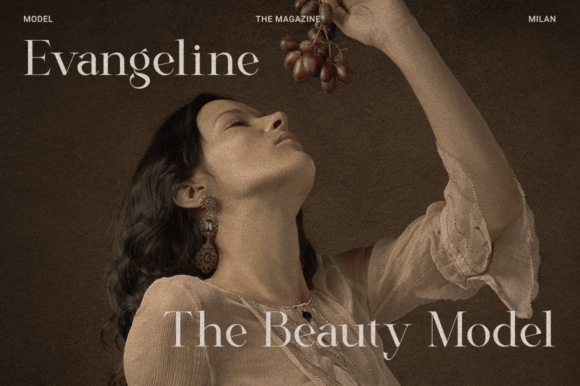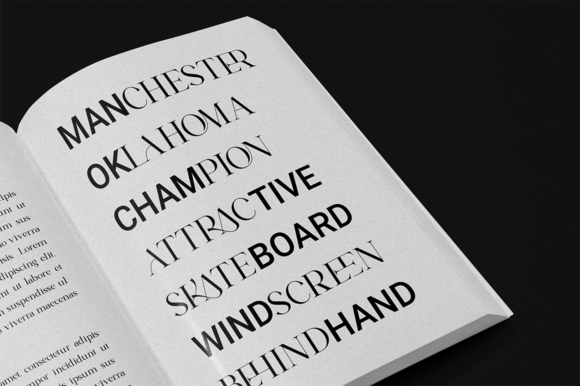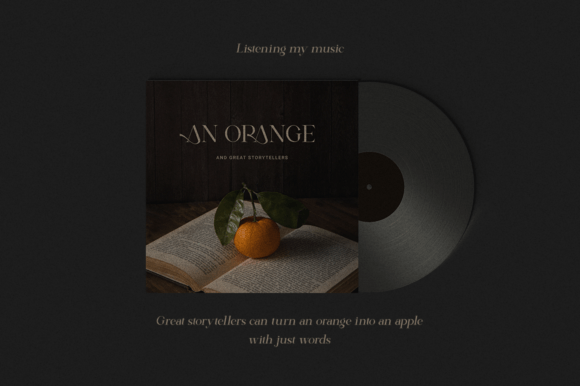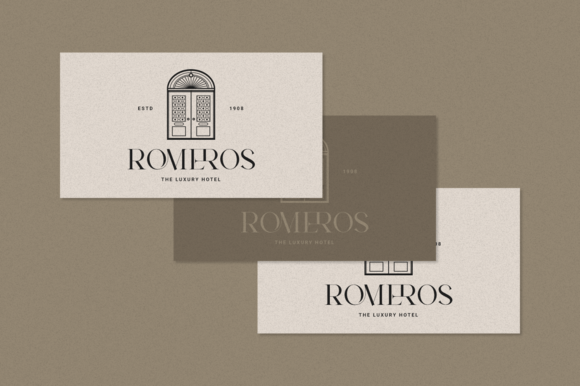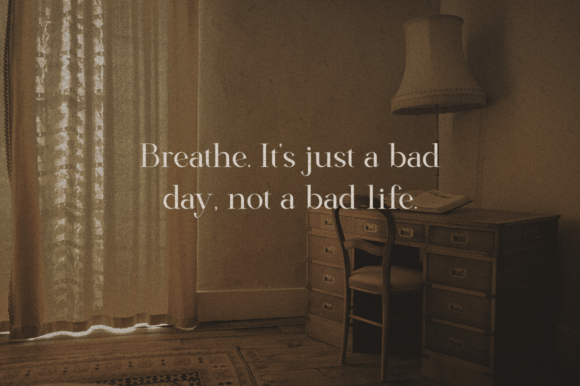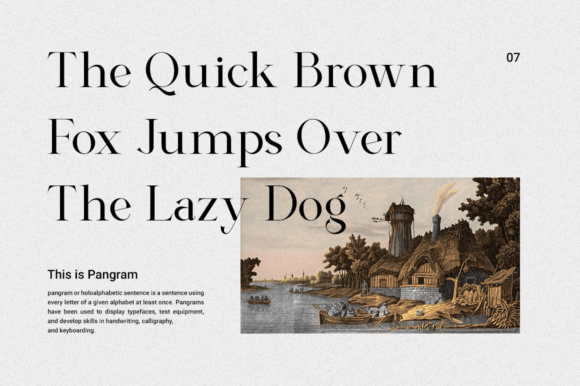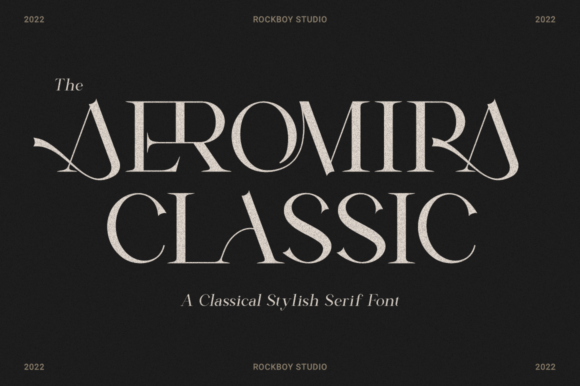
Aeromira Classic Font: Elevate Your Designs with Elegance and Sophistication
In the world of typography, a font can make or break a design. For designers and crafters seeking to add a touch of elegance and sophistication to their projects, Aeromira Classic is an exceptional choice. This stunning serif font boasts a unique blend of classic calligraphic influences and modern freshness, making it perfect for those who strive for perfection.
The Essence of Aeromira Classic
Aeromira Classic is an elegant and thin-lettered serif font that exudes refinement and poise. Its slender lines and precise curves create a sense of luxury, ideal for designs that demand a high level of sophistication. Whether you’re working on a branding project, packaging, or editorial design, Aeromira Classic is sure to impress.
Timeless Elegance with a Modern Twist
One of the standout features of Aeromira Classic is its ability to balance classic calligraphic influences with a contemporary feel. The font’s serif elements and delicate strokes evoke a sense of nostalgia, while its clean lines and modern aesthetic ensure it remains fresh and relevant. This harmonious blend of old and new makes Aeromira Classic an incredibly versatile font, suitable for a wide range of design applications.
For designers and crafters, Aeromira Classic offers endless possibilities. Use it to:
- Create stunning brand identities that exude elegance and sophistication
- Design beautiful packaging that stands out on store shelves
- Develop captivating editorial designs that engage and inspire
- Craft unique and eye-catching stationery and invitations
Why Choose Aeromira Classic?
With so many fonts available, why choose Aeromira Classic? Here are just a few reasons:
- Unique and distinctive: Aeromira Classic offers a fresh take on traditional serif fonts, making it an excellent choice for designers seeking to differentiate their work.
- Highly versatile: The font’s adaptability ensures it can be used across various design applications, from digital projects to print materials.
- Elegant and sophisticated: Aeromira Classic’s refined aesthetic makes it perfect for designs that demand a high level of luxury and sophistication.
Tips for Using Aeromira Classic
To get the most out of Aeromira Classic, consider the following tips:
- Pair with contrasting fonts: Combine Aeromira Classic with bold, modern fonts to create striking visual contrasts.
- Experiment with colors: While Aeromira Classic looks stunning in traditional black and white, don’t be afraid to experiment with bold colors to add an extra layer of personality to your designs.
- Pay attention to spacing: Aeromira Classic’s delicate lines and curves require careful attention to spacing to ensure optimal readability and visual flow.
Aeromira Classic is a truly exceptional font that offers designers and crafters a unique opportunity to elevate their designs with elegance and sophistication. Its perfect blend of classic calligraphic influences and modern freshness makes it an incredibly versatile and sought-after font. Whether you’re working on a branding project, packaging, or editorial design, Aeromira Classic is sure to help you bring your projects to the highest levels.